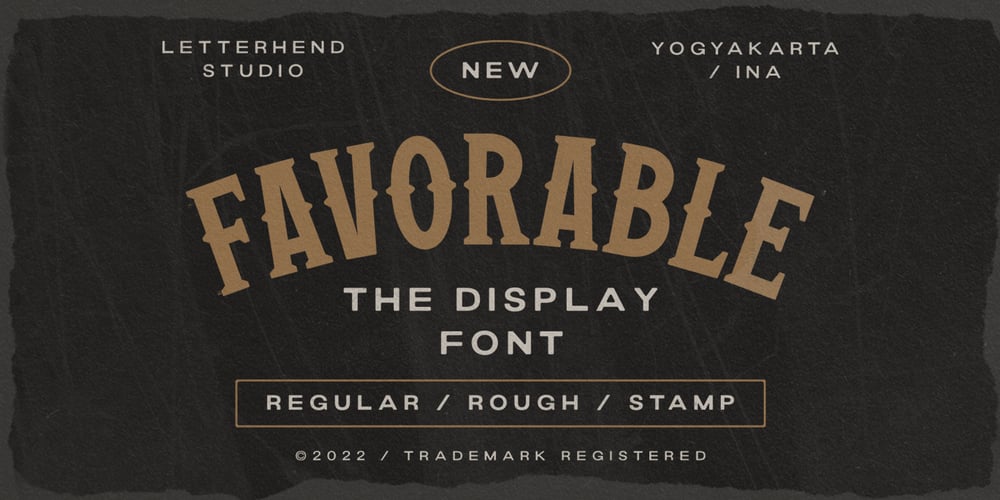
Favorable
Favorable font
Favorable Font Family was designed by Hendry Juanda and published by Letterhend. Favorable contains 3 styles and family package options. Favorable is a serif display typeface with a touch of vintage look and feel. This font comes with 3 styles : regular, rough and stamp. This type of font perfectly made to be applied especially in logo, headline, signage and the other various formal forms such as invitations, labels, logos, magazines, books, greeting / wedding cards, packaging, fashion, make up, stationery, novels, labels or any type of advertising purpose.Features : uppercase & lowercase numbers and punctuation multilingual alternates / swashes and ligatures PUA encoded We highly recommend using a program that supports OpenType features and Glyphs panels like many of Adobe apps and Corel Draw, so you can see and access all Glyph variations.